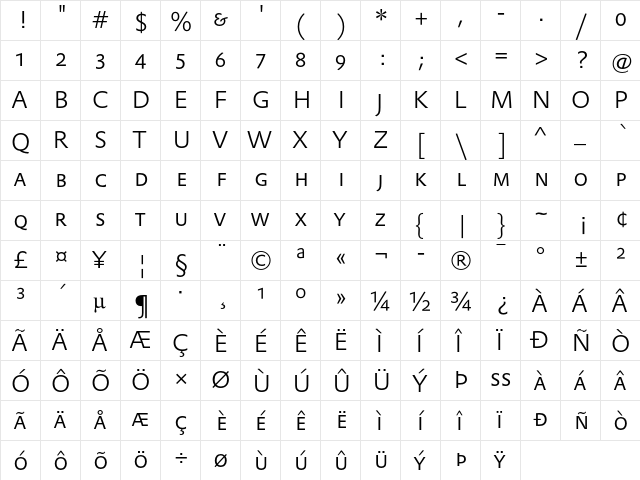
DTLProkyonTCapsLight Regular
Design Context for DTLProkyonTCapsLight Typeface
DTLProkyonTCapsLight is a composed and adaptable typeface that performs quietly and consistently across a wide range of design contexts. Its slender proportions lend an understated elegance to any composition.